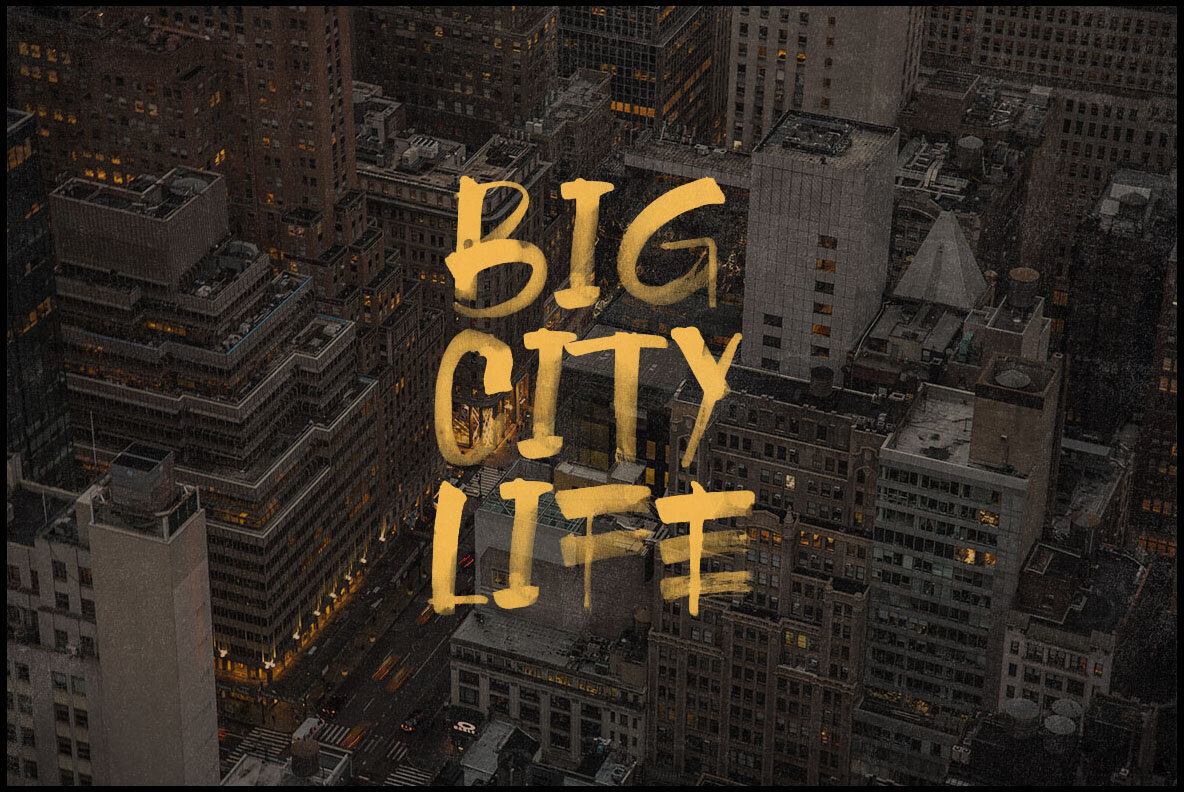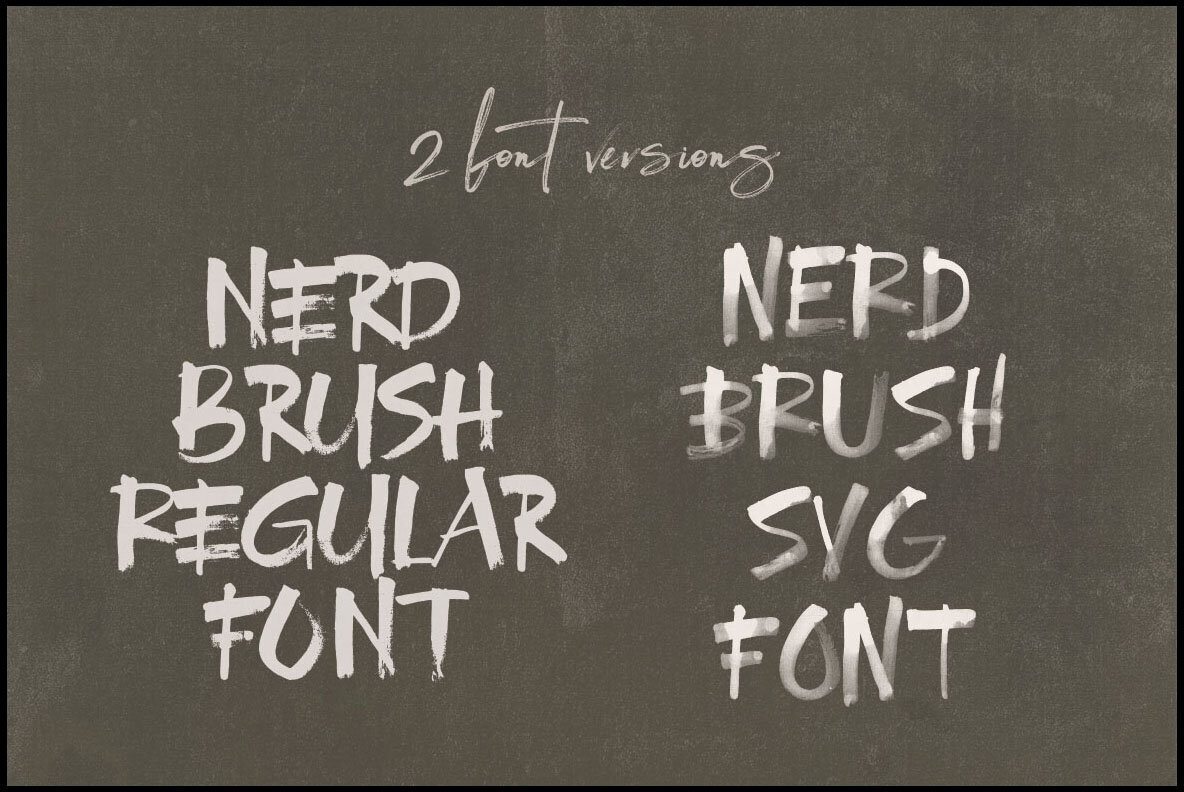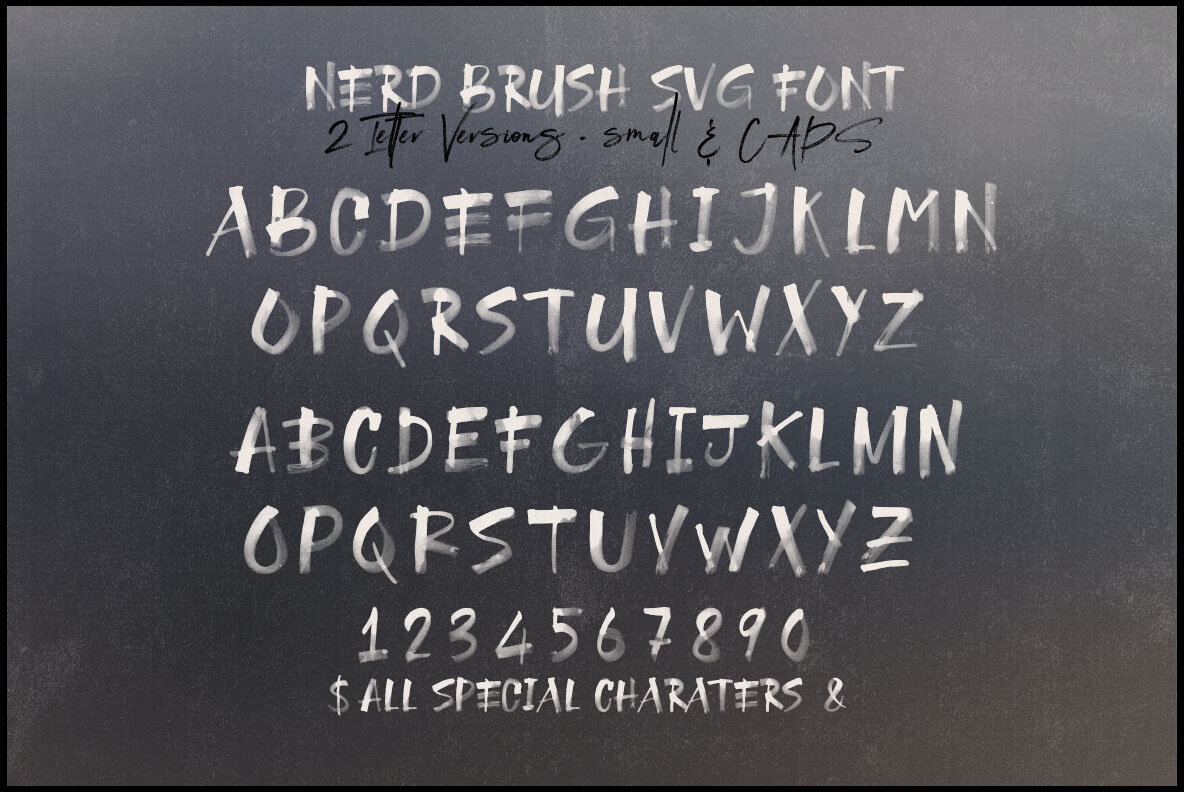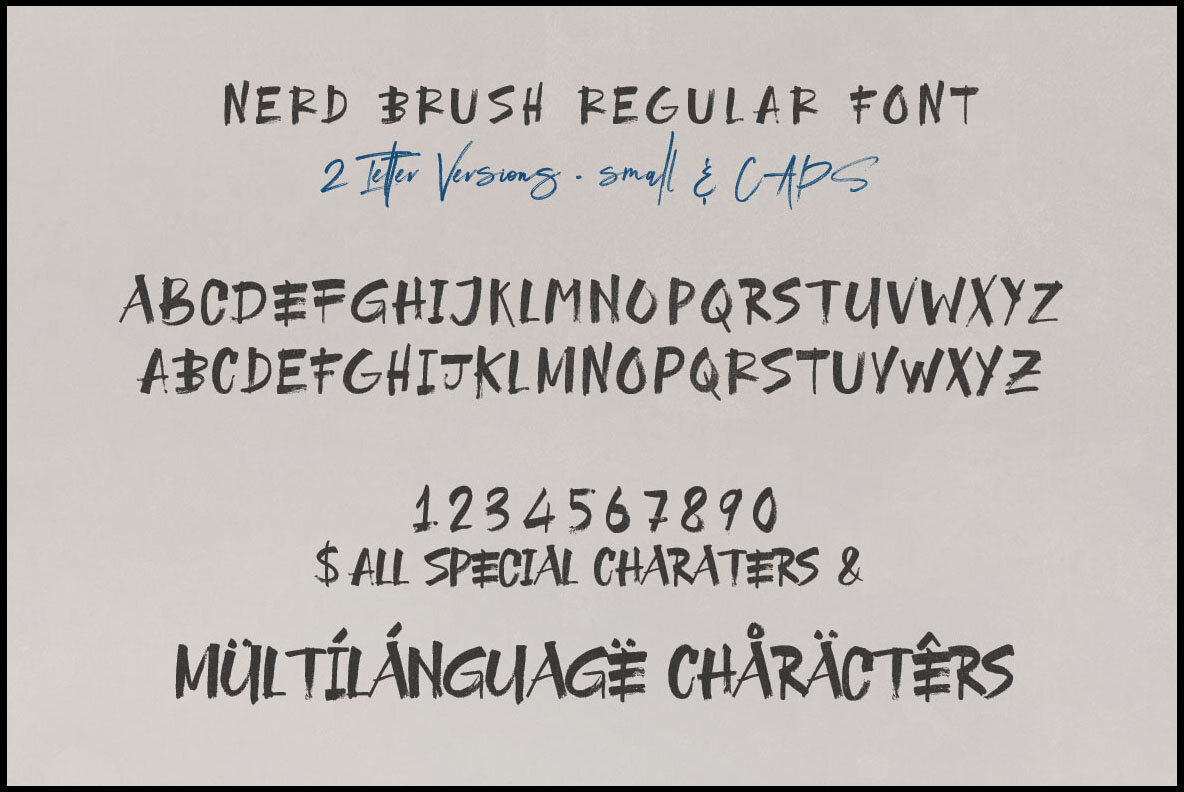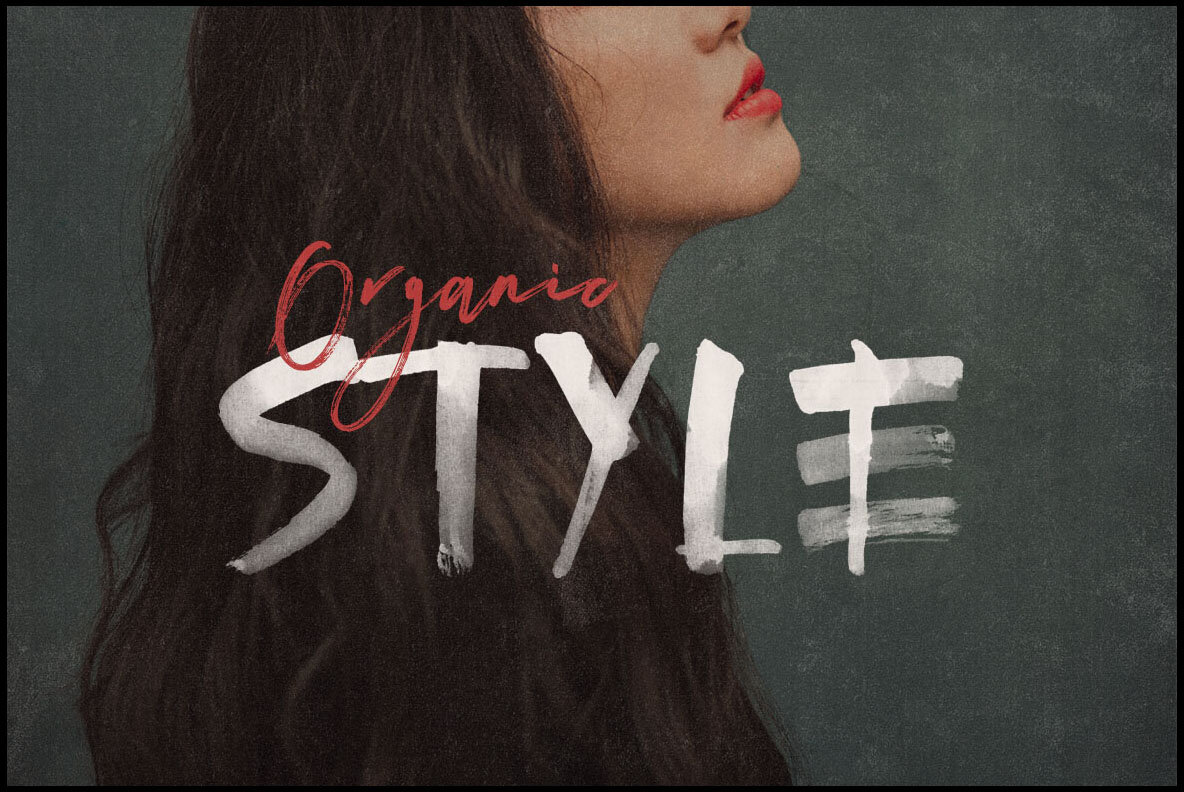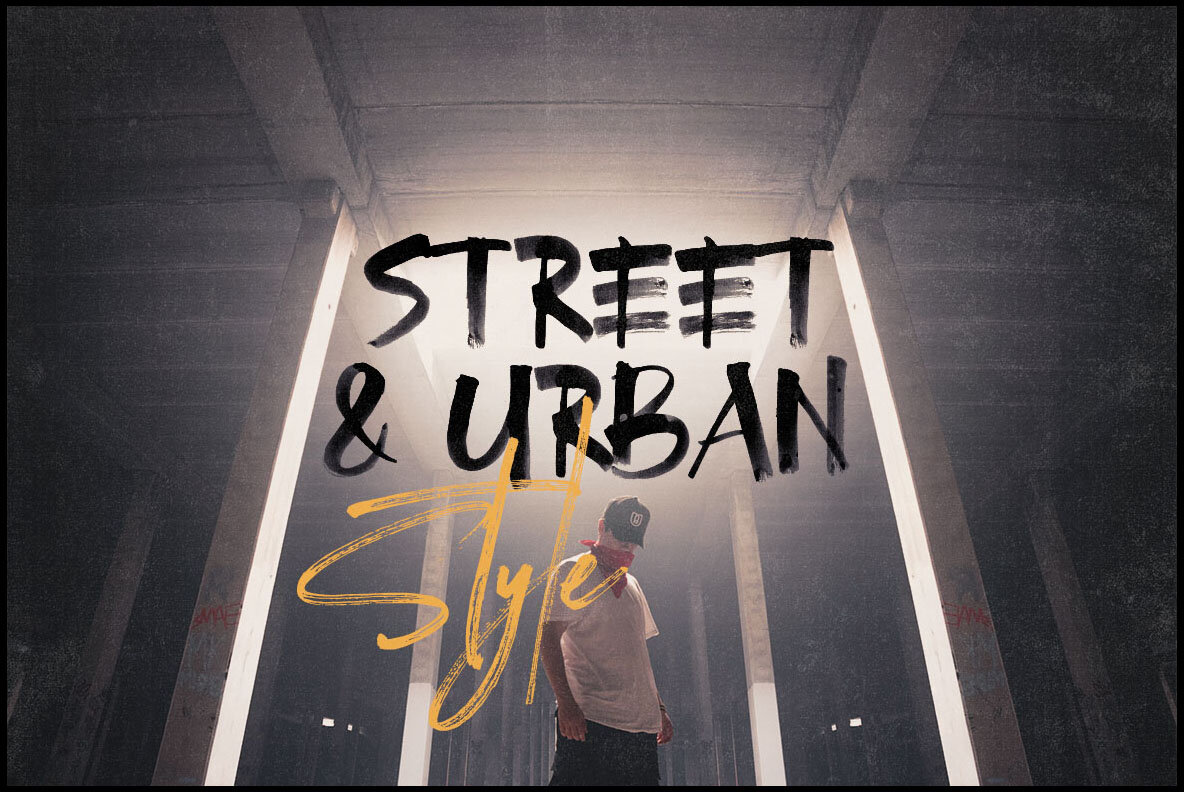
NERD Brush SVG Font
The NERD Brush font by Peter Olexa presents a unique brush or grunge style sans display, perfect for enhancing your artistic or grunge projects. Its distinct style makes it a standout choice for creative design endeavors. If you require any assistance with this font, feel free to contact Peter Olexa through his profile page for support.NERD Brush: Grunge Style Sans Display Font